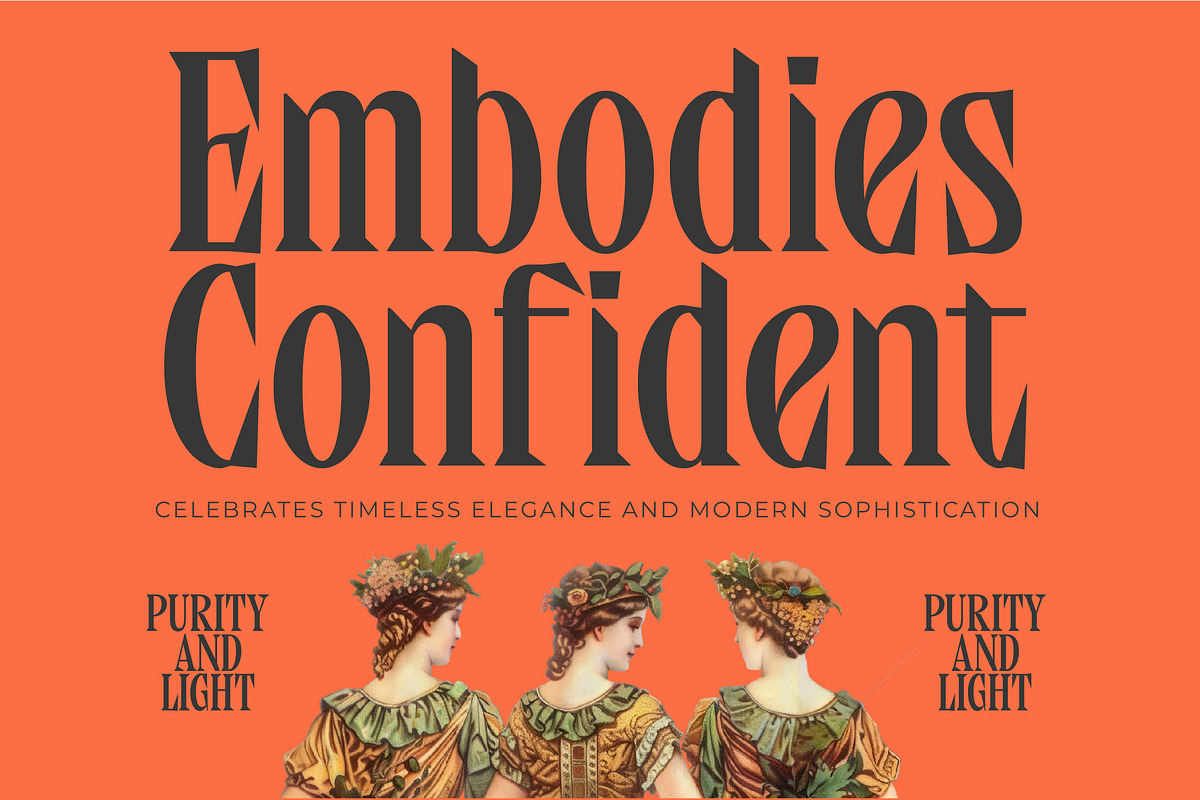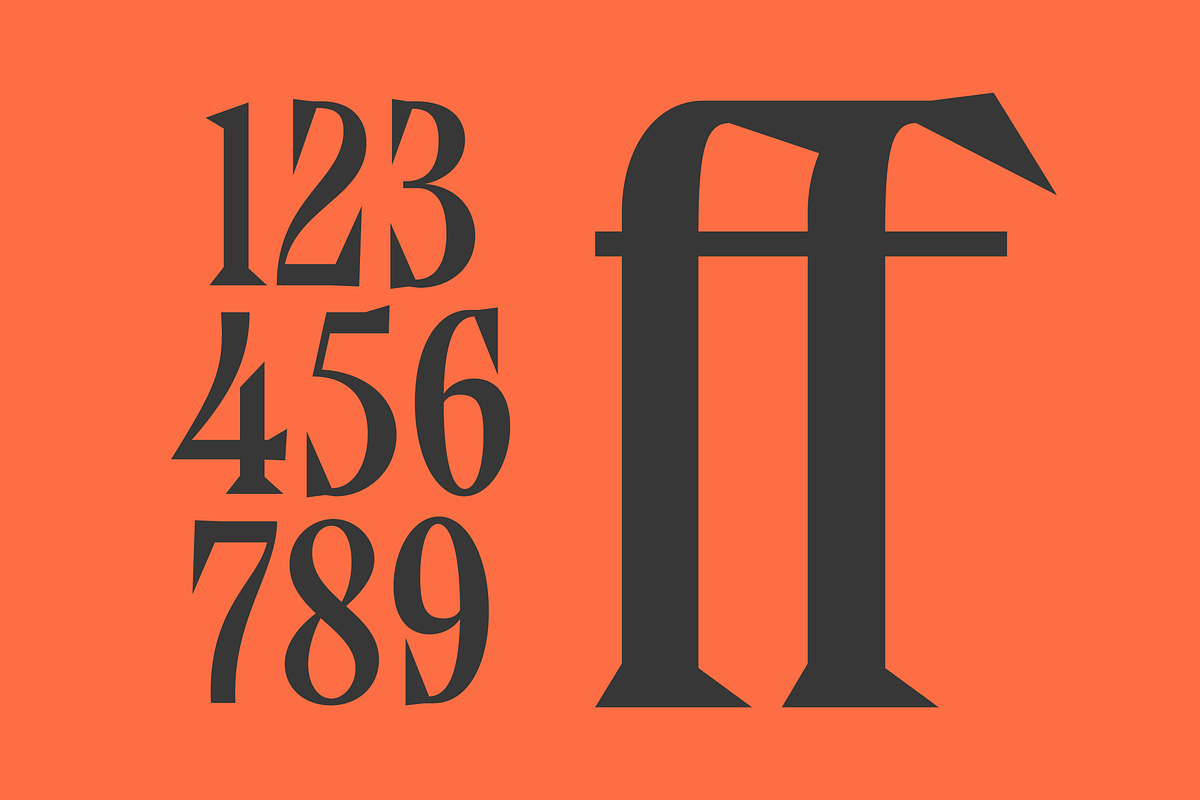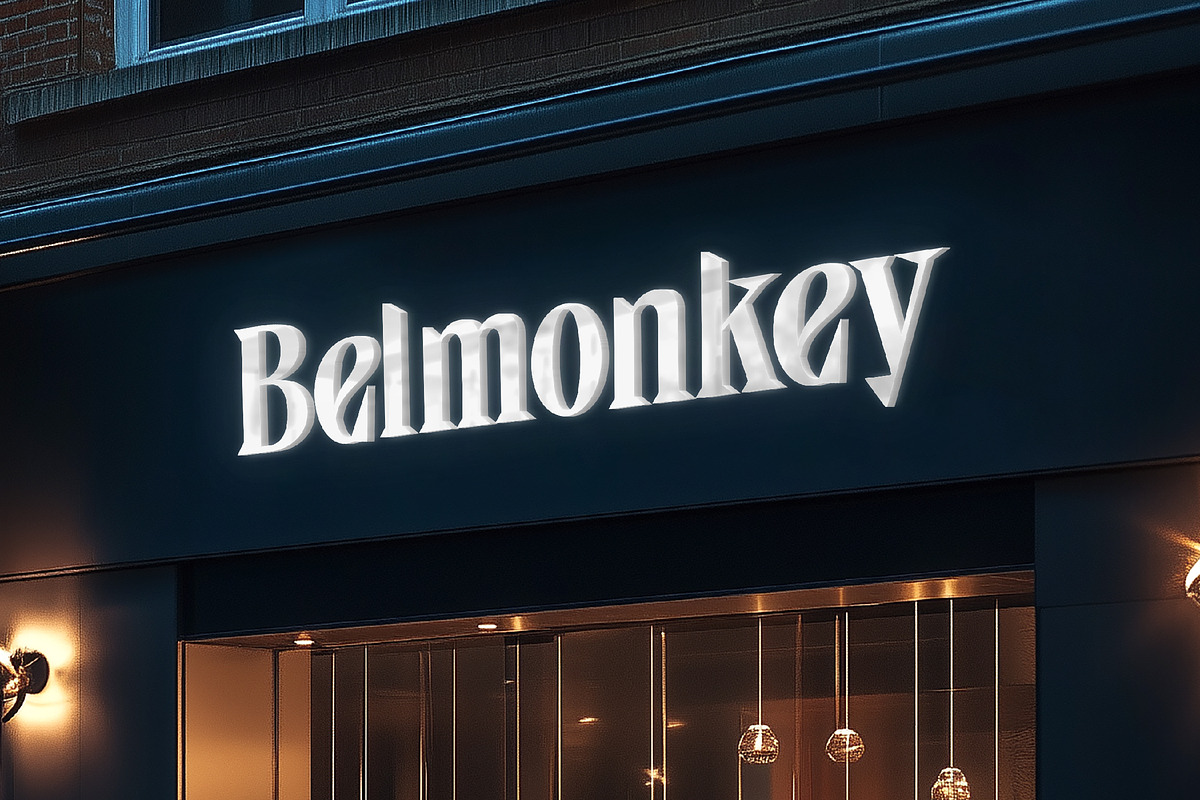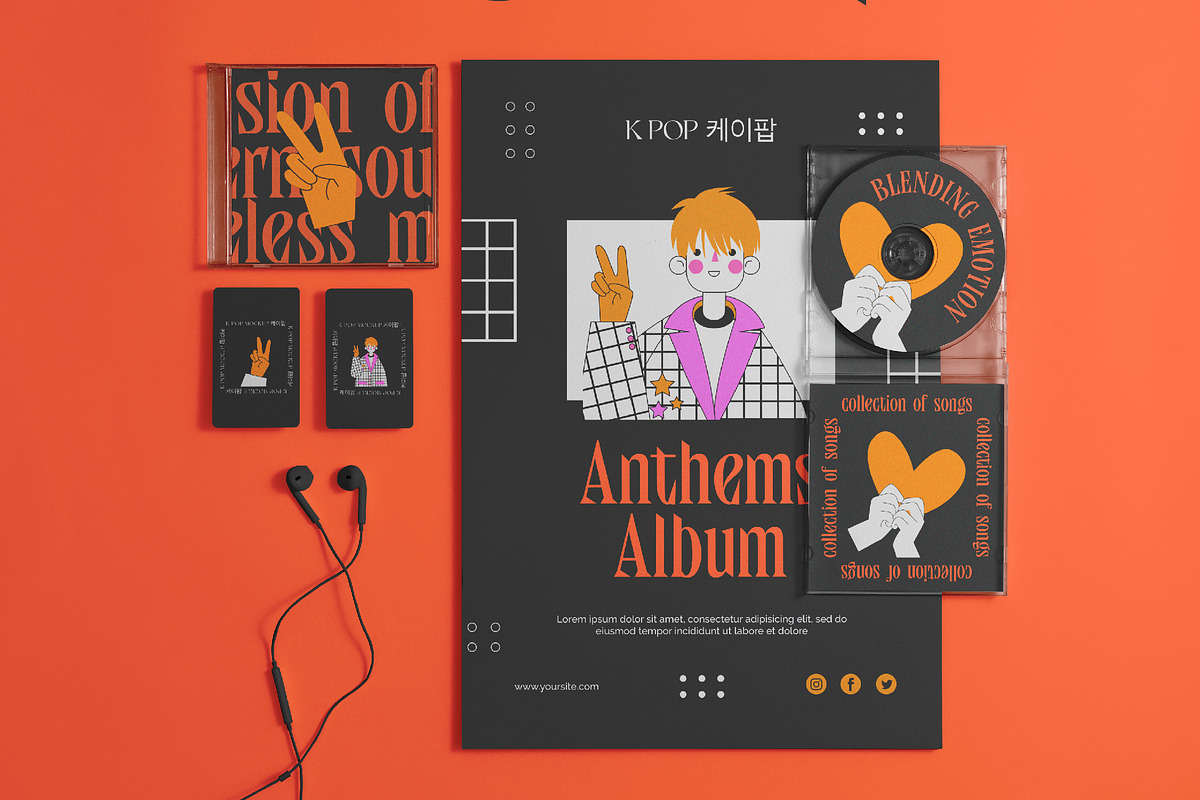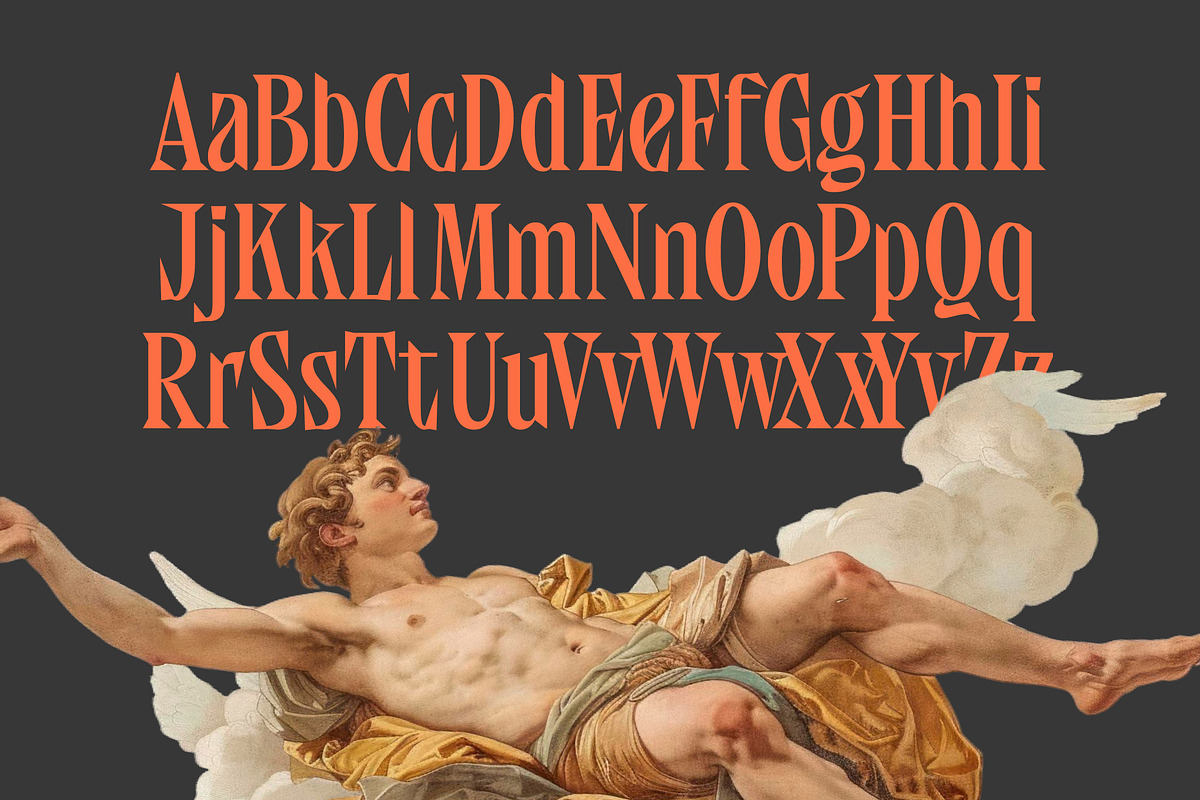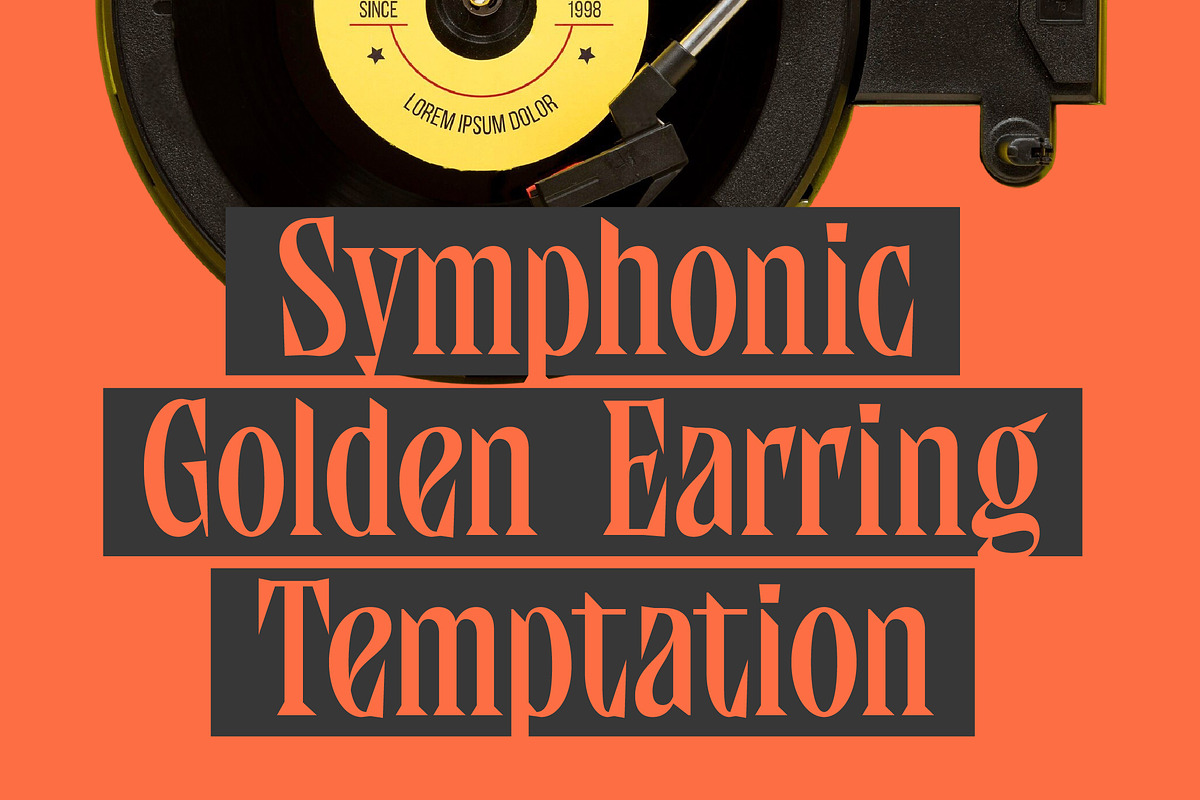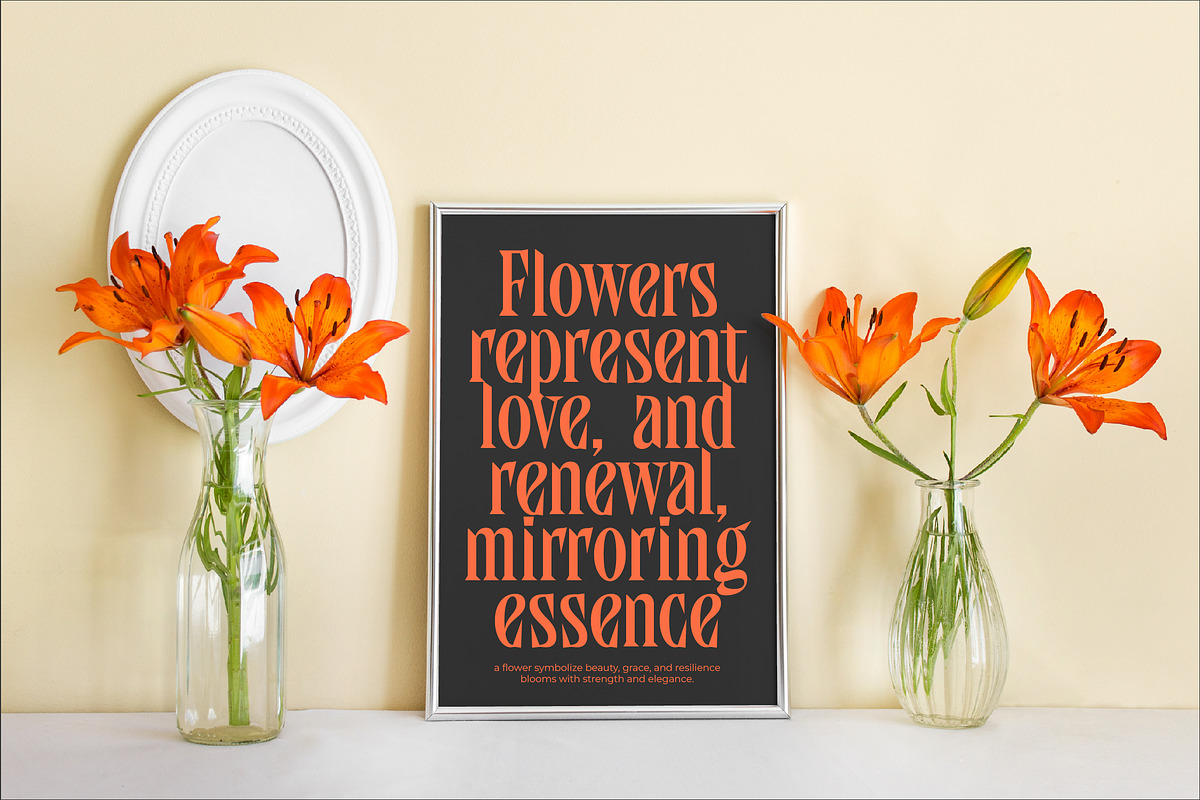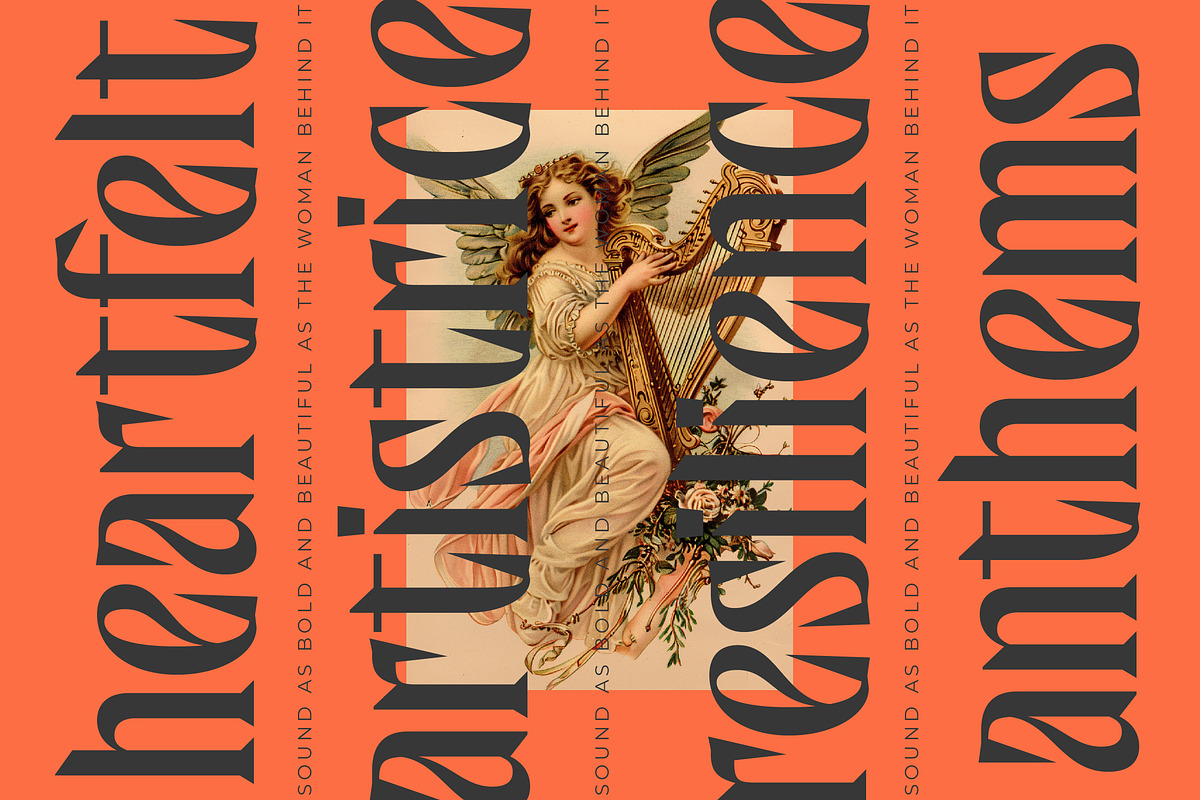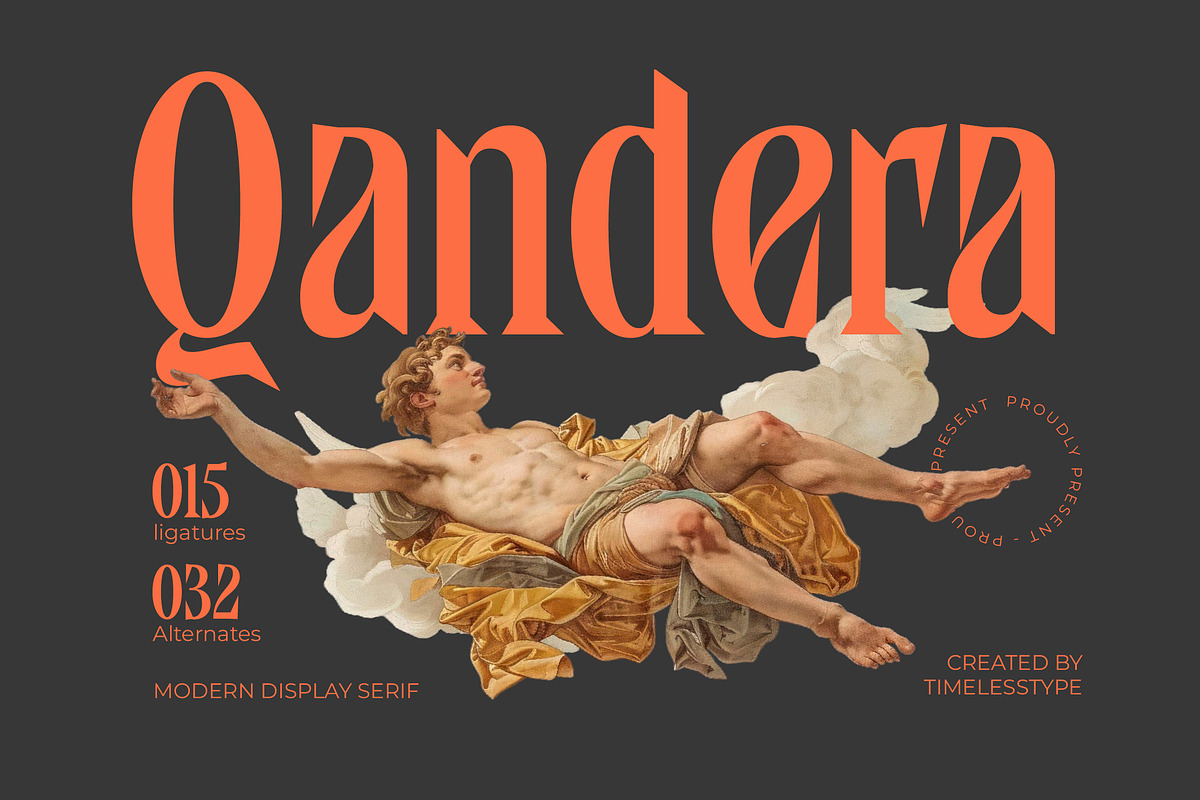
Qandera Modern Display Serif
Embrace the intersection of classical artistry and contemporary refinement with Qandera, a typeface designed to command attention and evoke deep emotion. This font transforms every word into a visual masterpiece, blending historical elegance with a sharp, modern edge for discerning designers.
Drawing inspiration from the dramatic lighting and statuesque forms of the Renaissance, this typeface captures a sense of timeless grandeur. Its silhouettes are reminiscent of classical oil paintings and marble sculptures, where every curve and sharp terminal tells a story of meticulous craftsmanship and atmosphere.
As a modern serif display choice, Qandera exudes a sense of luxury typography through its high-contrast serif strokes and refined proportions. It is the ultimate editorial font for creators seeking a high branding impact that feels both prestigious and aesthetically innovative.
Staying ahead of the modern serif trend, this typeface perfectly fits the current demand for editorial display fonts that offer a distinct, loud voice. It stands out in the competitive world of character-driven typography by providing a unique visual rhythm that resonates with sophisticated global audiences.
This versatile typeface is the perfect partner for high-end logo design and comprehensive branding projects that require an air of exclusivity. Whether it is used in a luxury editorial, premium product packaging, bespoke wedding invitations, or a high-end fashion lookbook, it delivers unparalleled grace.
This font package is fully loaded with 15 unique ligatures and 32 alternates to help you customize your layouts to perfection. It also includes comprehensive multilingual support and a wide range of international characters to ensure your designs maintain their beauty across various languages.
- Ligature 015 Alternate 032